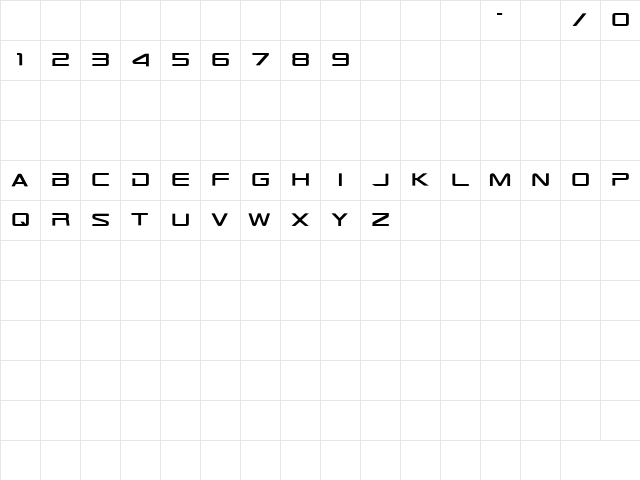
TR-909 Regular
Design Context for TR-909 Typeface
TR-909 is a composed and adaptable typeface that performs quietly and consistently across a wide range of design contexts.